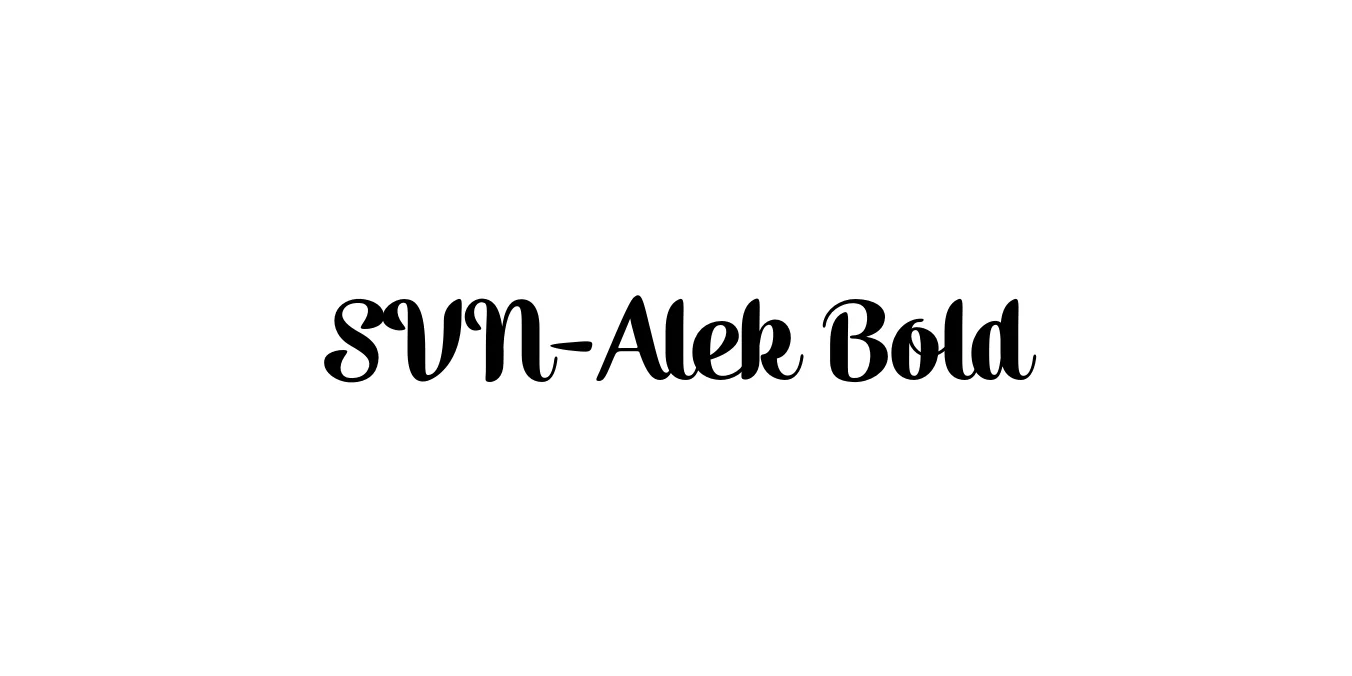
SVN-Alek Bold
Designed by Emil Bertell (Fenotype), localized by SVN
SVN-Alek Bold is a localized version of the popular Alek font family originally designed by the renowned Finnish type designer Emil Bertell. This typeface is characterized by its elegant, upright script style that combines the fluidity of handwriting with the precision of modern graphic design. The Bold weight specifically offers a punchy, high-contrast look that commands attention while maintaining a sophisticated and rhythmic flow, making it an excellent choice for designers looking to bridge the gap between traditional calligraphy and contemporary digital typography.
As part of the SVN (Styleviet) collection, this version has been carefully modified to include full support for the Vietnamese language, ensuring that diacritics and special characters are rendered harmoniously with the font's aesthetic. It features a wide array of alternates and ligatures that allow for a custom, hand-lettered appearance. Whether used in high-end branding or editorial layouts, SVN-Alek Bold provides a versatile and stylish solution for projects that require a touch of luxury and personality.
SVN-Alek Bold Best Uses
Ideal for creating distinctive logos and brand identities that require a personal touch.
Perfect for premium product packaging, especially in the luxury cosmetics and food industries.
Excellent for eye-catching quotes and high-impact social media graphics.
Adds a sophisticated and elegant feel to wedding invitations and event stationery.